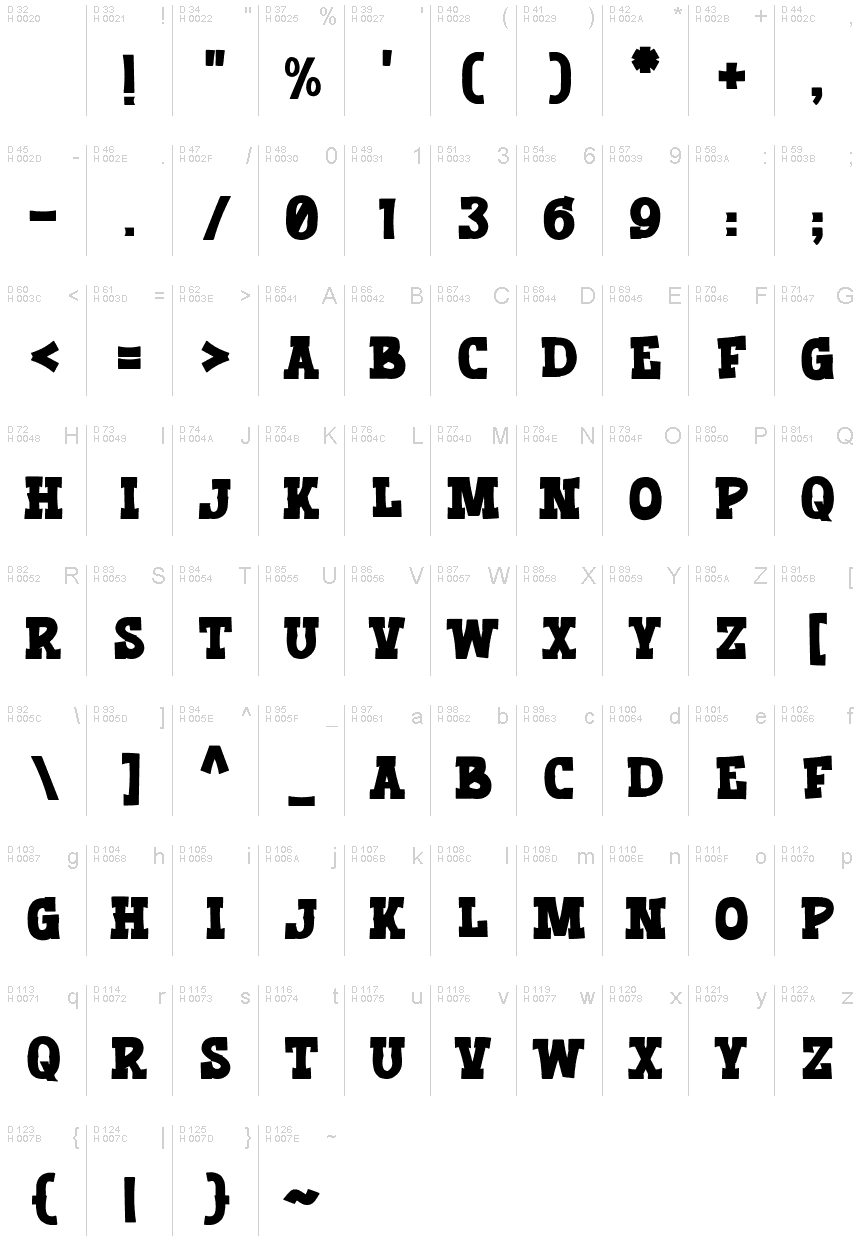
Lazy Coffee
Lazy Coffee by Gassstype is not your average display font. With its cartoon style and extra-bold weight, it exudes a modern vibe with a touch of whimsy, perfect for infusing personality into your creative endeavors. The all-caps bold typeface boasts dramatic movement akin to a quick, casual scribble that brings life and authenticity to any project. Whether you're crafting labels with character, eye-catching posters, or unique branding materials, Lazy Coffee adds an organic texture that feels both elegant and natural.
Its versatility shines in a wide array of applications – from greeting cards to websites, photography overlays to scrapbooking. Lazy Coffee is designed to make your designs stand out with its distinct flair and bold presence. It's more than just a font; it's the ingredient that will turn your project from ordinary to extraordinary with its undeniably unique charm.